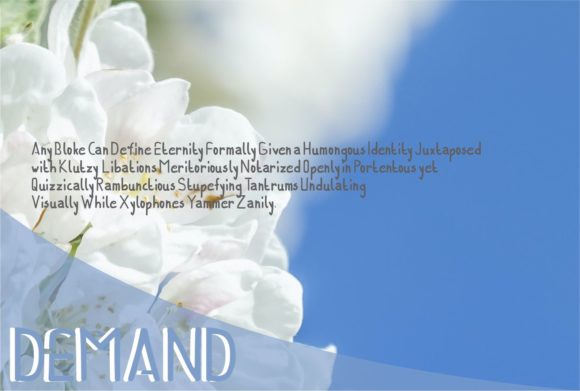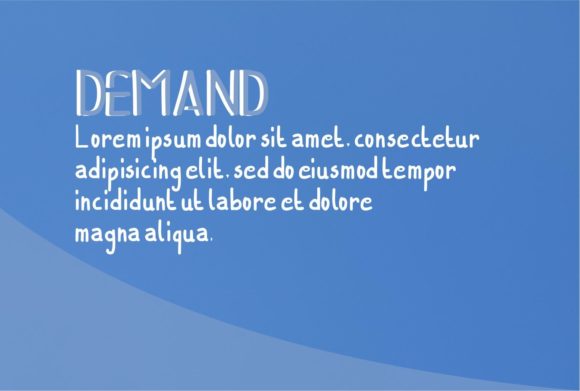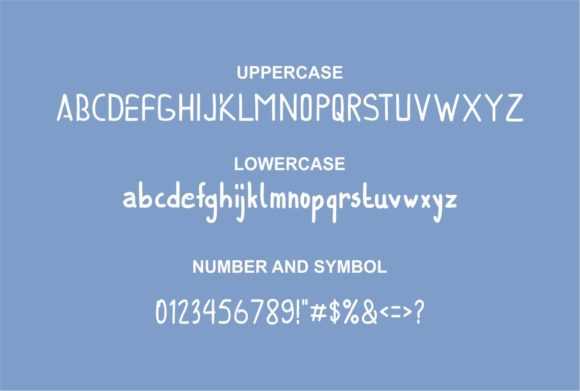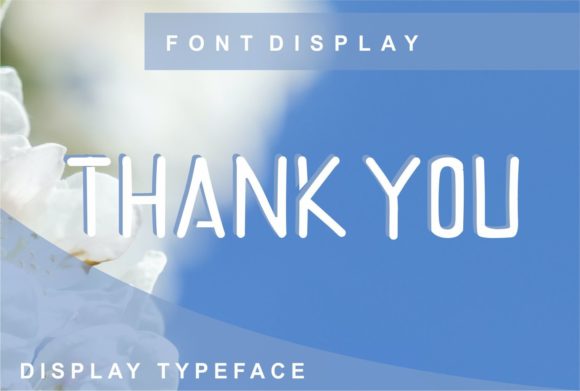
Introducing Demand Font: A Clean and Adaptable Display Font
Are you tired of using the same old fonts in your designs? Look no further than Demand Font, a clean and adaptable display font that’s perfect for adding a touch of sophistication to your creations. In this article, we’ll take a closer look at Demand Font, its features, and why it’s a must-have for designers and crafters.
What is Demand Font?
Demand Font is a modern display font designed to elevate your typography. Its clean lines, elegant curves, and versatile style make it an excellent choice for a wide range of design projects. Whether you’re working on a logo, branding, advertising, or packaging, Demand Font is sure to make a lasting impression.
Key Features of Demand Font
- Clean and Adaptable: Demand Font boasts a clean and adaptable design, making it easy to pair with other fonts and styles.
- Versatile: This font is perfect for various design projects, including logos, headings, and titles.
- Elegant: Demand Font features elegant curves and lines, adding a touch of sophistication to your designs.
- High-Quality: This font is designed with high-quality craftsmanship, ensuring it looks great in any size or resolution.
Why Choose Demand Font?
So, why should you choose Demand Font for your design projects? Here are just a few reasons:
- Enhance Your Creations: Demand Font has the potential to enhance any creation, making it a valuable addition to your font library.
- Stand Out from the Crowd: With its unique and elegant design, Demand Font can help your designs stand out from the competition.
- Constantly Improved: The creators of Demand Font are committed to continually improving and updating the font to ensure it meets the needs of designers.
Tips and Tricks for Using Demand Font
Here are some tips and tricks to help you get the most out of Demand Font:
- Pair with Other Fonts: Experiment with pairing Demand Font with other fonts to create a unique and visually appealing design.
- Adjust the Size: Play with different font sizes to create visual hierarchy and emphasis in your design.
- Use in Combination with Images: Use Demand Font in combination with images to create a striking and effective design.
In conclusion, Demand Font is a clean and adaptable display font that’s perfect for designers and crafters looking to elevate their typography. With its elegant design, versatility, and high-quality craftsmanship, Demand Font is sure to become a valuable addition to your font library. Whether you’re working on a logo, branding, or packaging, Demand Font is the perfect choice for adding a touch of sophistication to your creations.